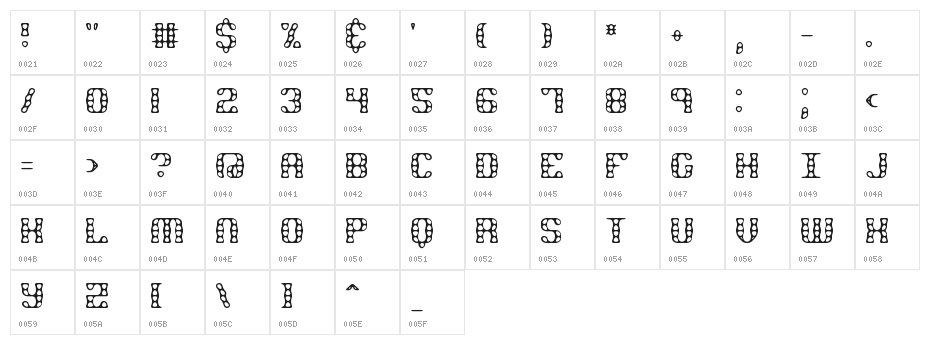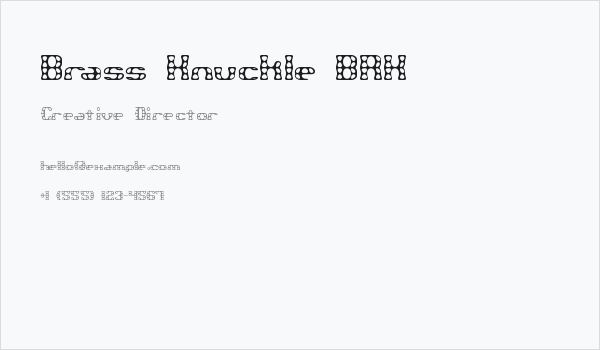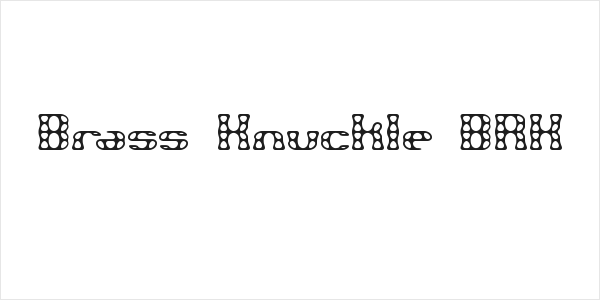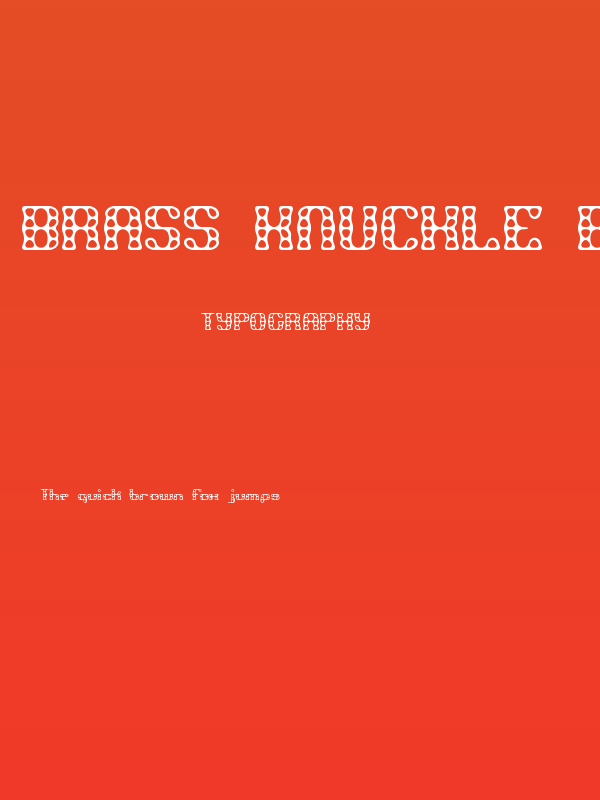
Brass Knuckle BRK Font
Brass Knuckle BRK Description
This font features a bold, decorative style with a unique, industrial feel. The characters are constructed with a series of circular cutouts, giving them a distinctive, mechanical appearance. The uppercase and lowercase letters maintain a consistent design, with rounded edges and a uniform thickness throughout. The numbers and special characters follow the same aesthetic, ensuring a cohesive look across all glyphs. This font's playful yet edgy design makes it stand out, ideal for projects that require a strong visual impact.
| Proposed Projects | Ideal for posters, album covers, branding, and any project needing a bold, industrial aesthetic. |